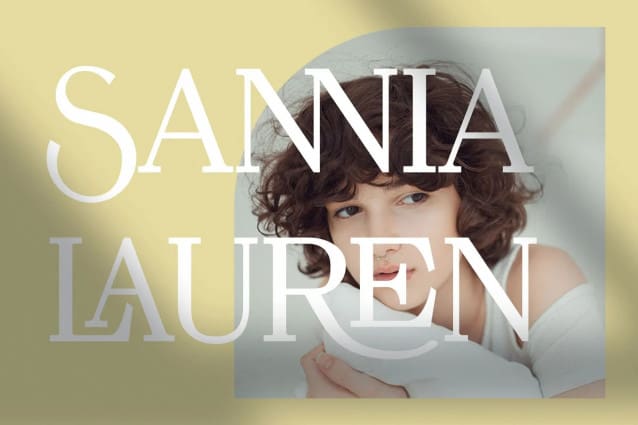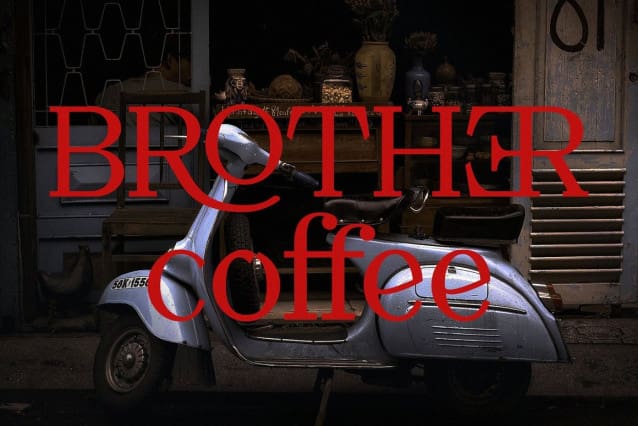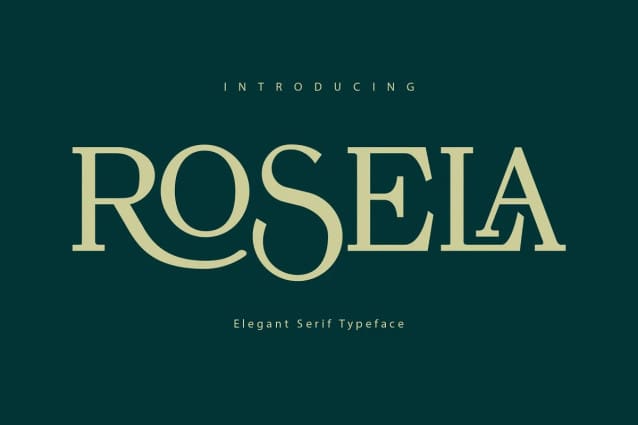
Rosela Serif Font
Rosela Serif Font a beautiful series of letters are summarized in this rosela font. Neat lettering is perfect for writing needs that are modern and pleasing to the eye. there is a classic feel but still looks elegant when used for writing.